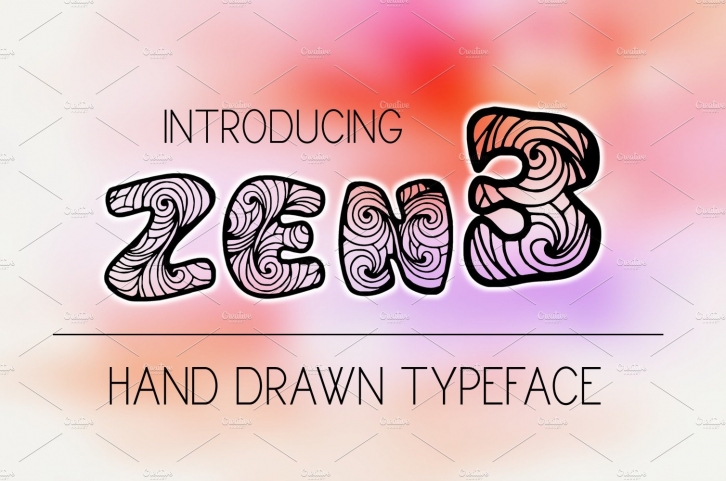
Zen3 is a carefully drawn font. It was drawn by hand on a digital tablet. Digizen is great for branding, logos, titling, signage, poster, flyers or t-shirts design, headlines and more!